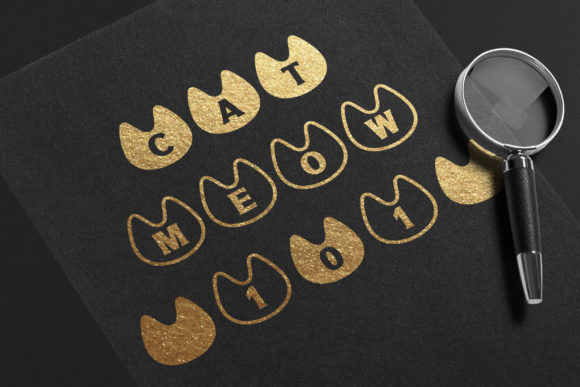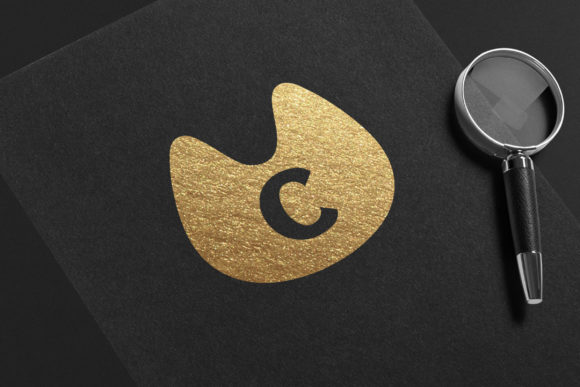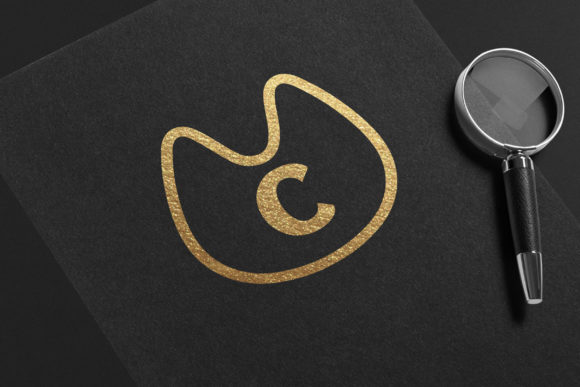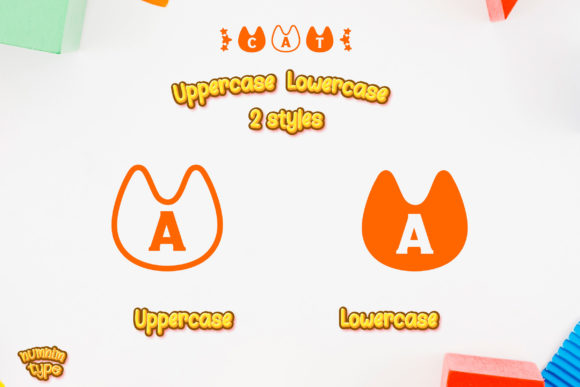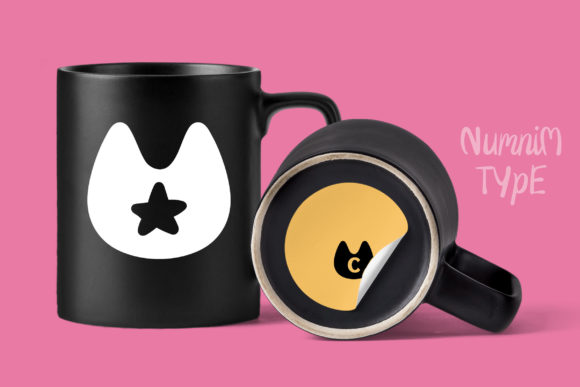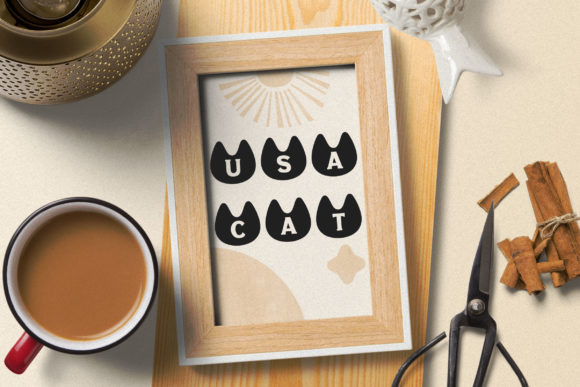
The Purrfect Font: A Deep Dive into Cat Font
I’ll never forget the time I was working on a project for a children’s activity book. I had all the illustrations and content ready, but I was struggling to find the right font to bring it all together. That’s when I stumbled upon Cat Font, and it was love at first sight! 😍 The playful and authentic vibe it embodied was exactly what I needed to make my project shine. In this article, I’ll share my experience with Cat Font, its features, and how to make the most of it in your designs.
An Honest Review of Cat Font
What I Love About Cat Font
- ✨ Playful and fun design that’s perfect for children’s activities or school projects
- ✅ Authentic feel that adds a personal touch to any design
- 💕 Wide range of use cases, from posters to digital graphics
- 🎉 Easy to read and understand, even for younger audiences
While Cat Font is an amazing choice for many projects, there are a few things to keep in mind: 🤔
- ⚠️ Limited character set: While it has a wide range of letters and numbers, it may not have all the special characters you need
- ⚠️ Not suitable for body text: Cat Font is best used for headings, titles, or short paragraphs, as it may be too playful for longer texts
The Designer Inspiration Behind Cat Font
Cat Font was designed with one goal in mind: to create a playful, authentic font that brings joy to children’s activities and school projects. The designer, inspired by their own childhood love of cats and playful typography, set out to create a font that’s both fun and functional.
Q: Does Cat Font support OpenType features?
A: Yes, Cat Font supports OpenType features, including glyphs and stylistic alternates.